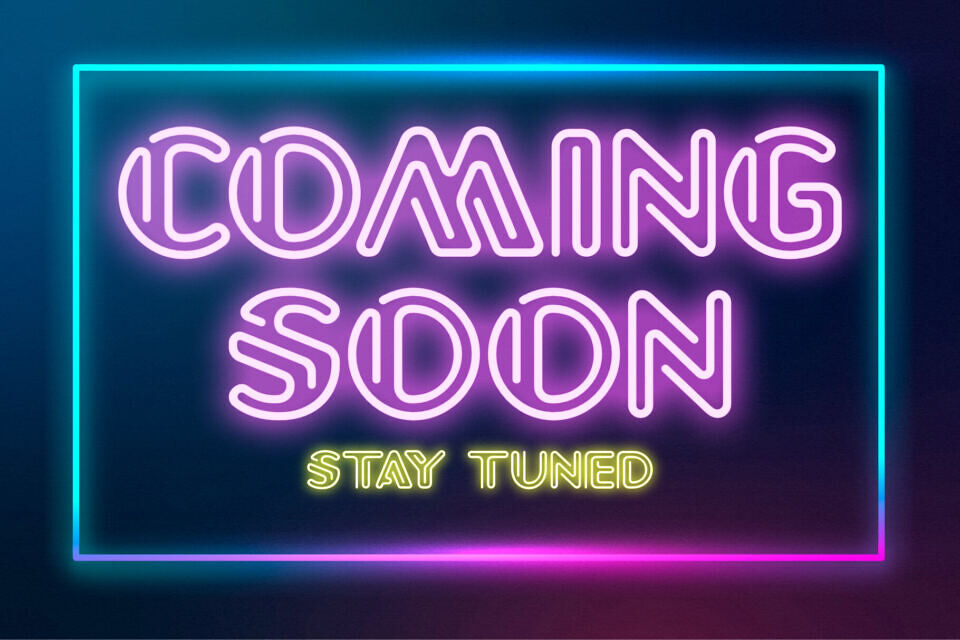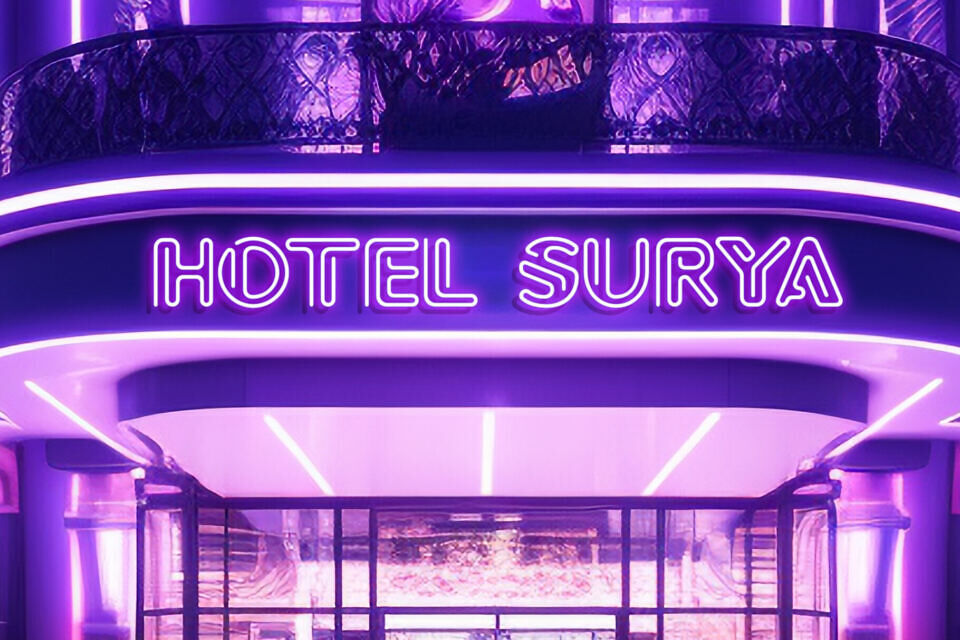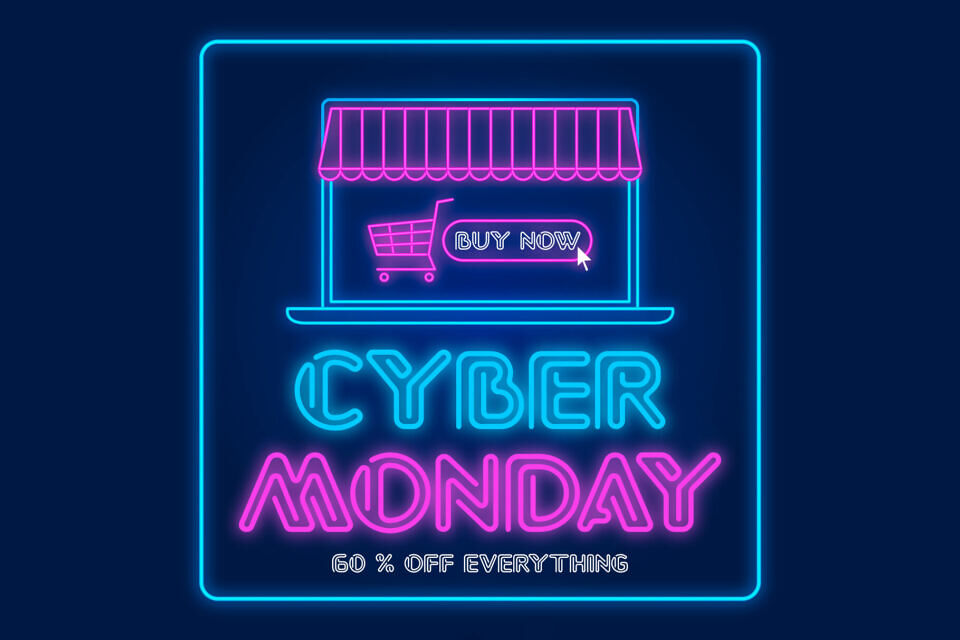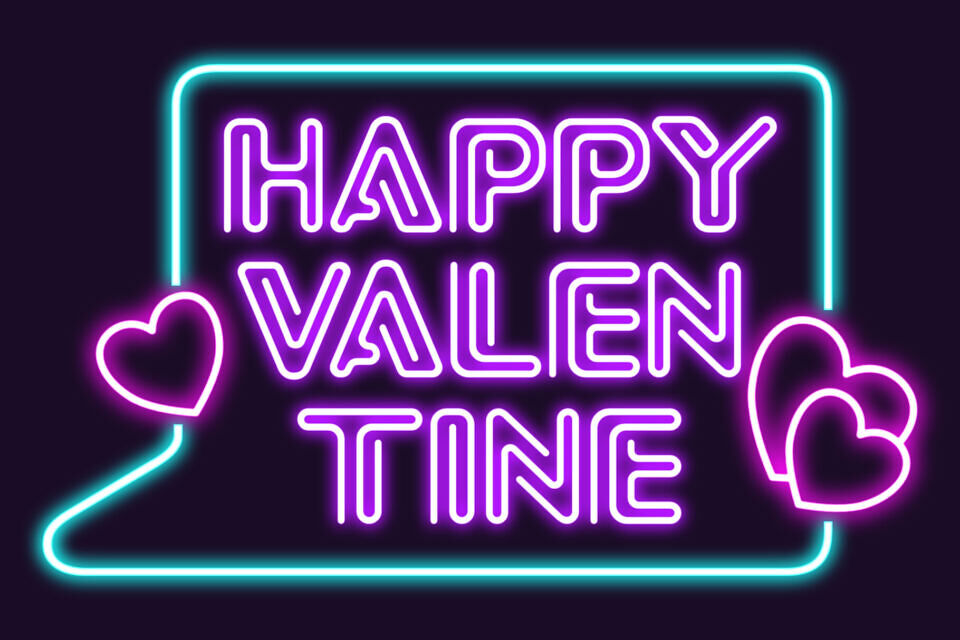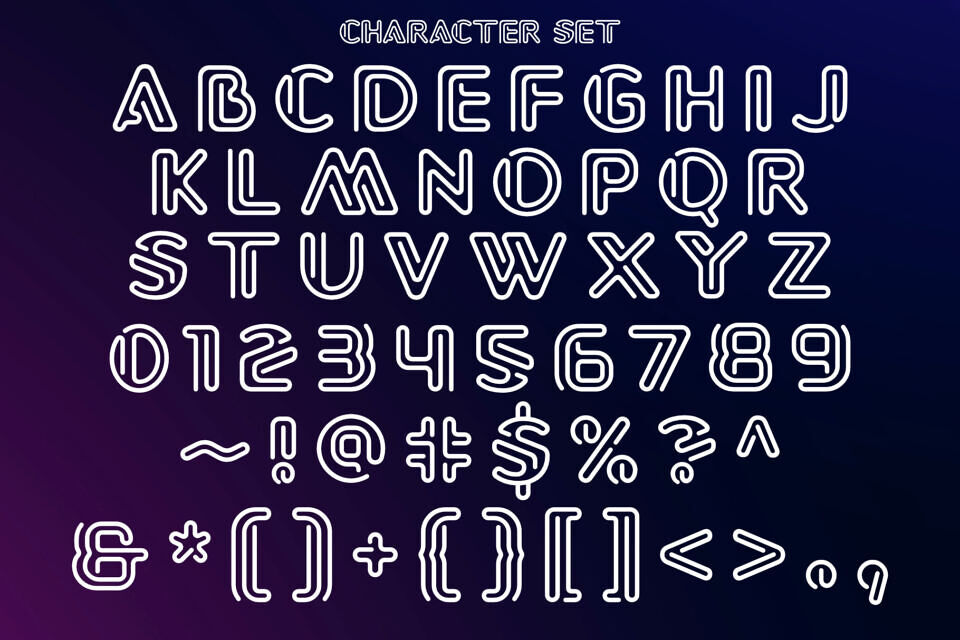
Introducing Gleamy Neon, a cutting-edge font with a futuristic style that brings a dynamic and modern touch to your designs. Inspired by the sleek aesthetics of neon light signs, Gleamy Neon features minimalist letterforms with smooth, rounded corners. True to authentic neon tubes, it employs lines with open start and end points, making it perfect for adding glowing light effects or creating real-world neon signs.
Gleamy Neon is ideal for a wide range of projects, including logos, headlines, posters, badges, t-shirts, and more. Its versatile design also makes it perfect for social media posts, certificates, labels, and other creative works.